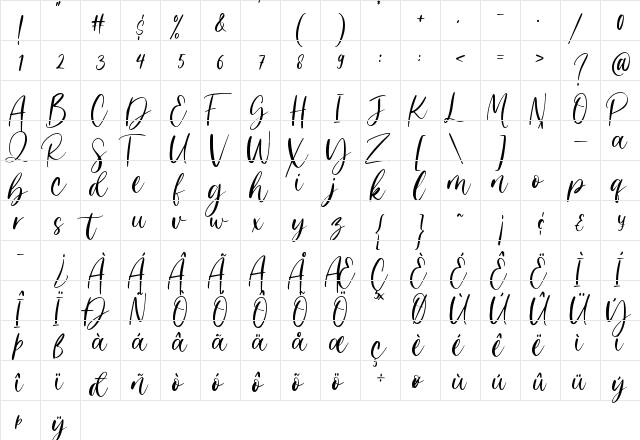
Angela Dream Regular
| Designer | Muhamad Yusron Billah |
Design Context for Angela Dream Typeface
Angela Dream is a composed and adaptable typeface that performs quietly and consistently across a wide range of design contexts.